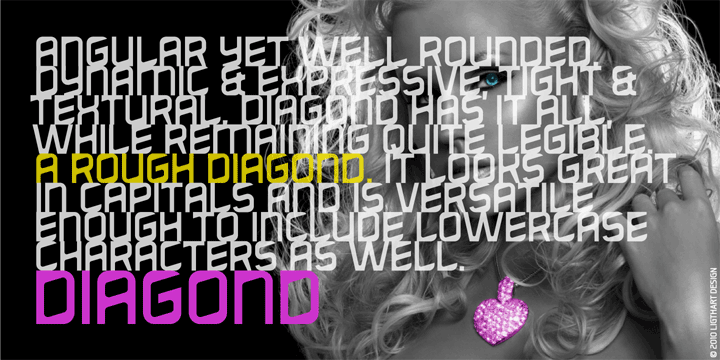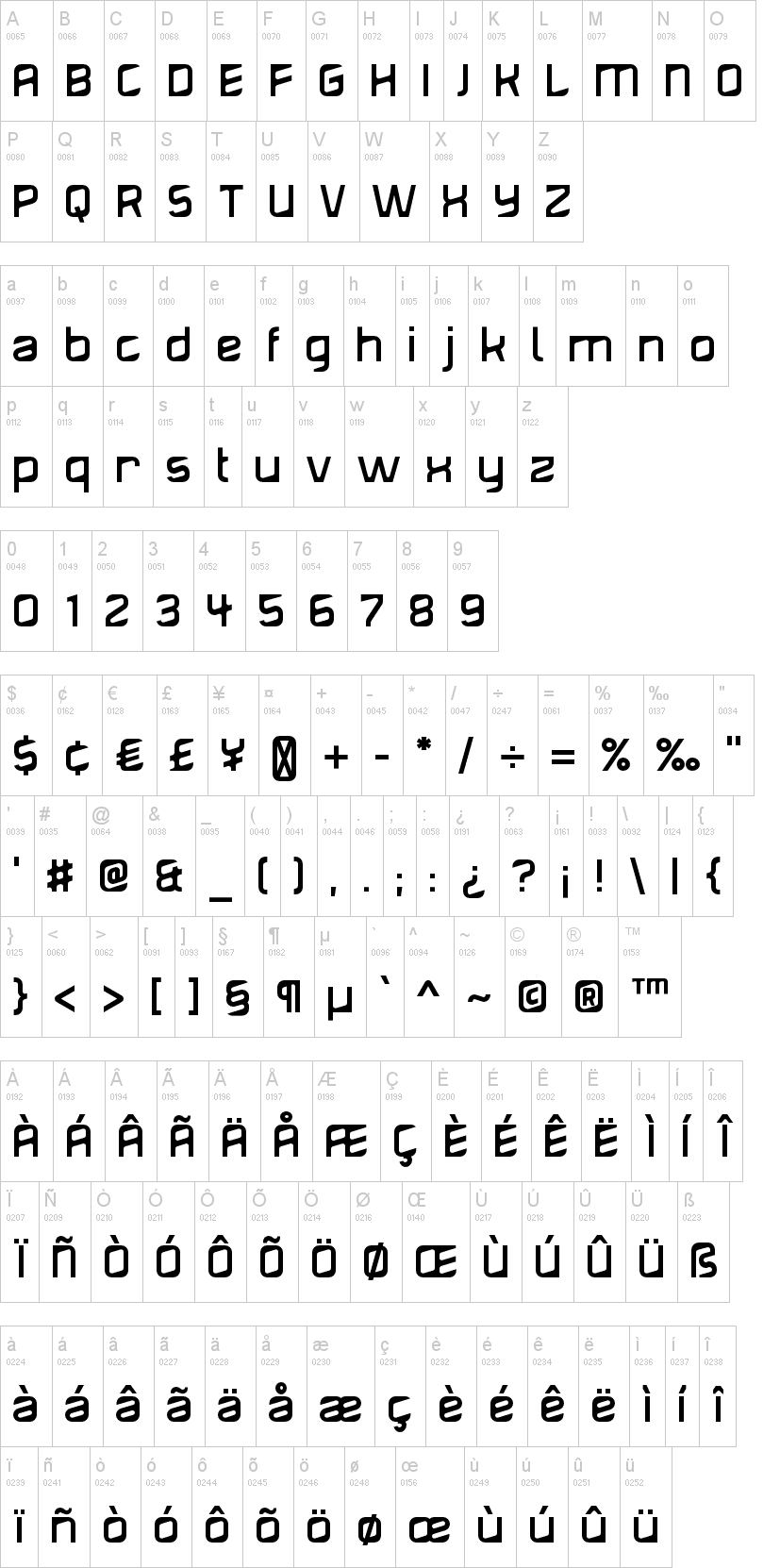
diagond-light.otfNote of the authorSporting a uniform upward slope in the letterforms, Diagond is a contemporary decorative/display typeface with hints of the seventies and Art-Nouveau. The font contains some alternative lower-case glyphs, as well as ligatures, and East European, Turkish and Baltic languages support.